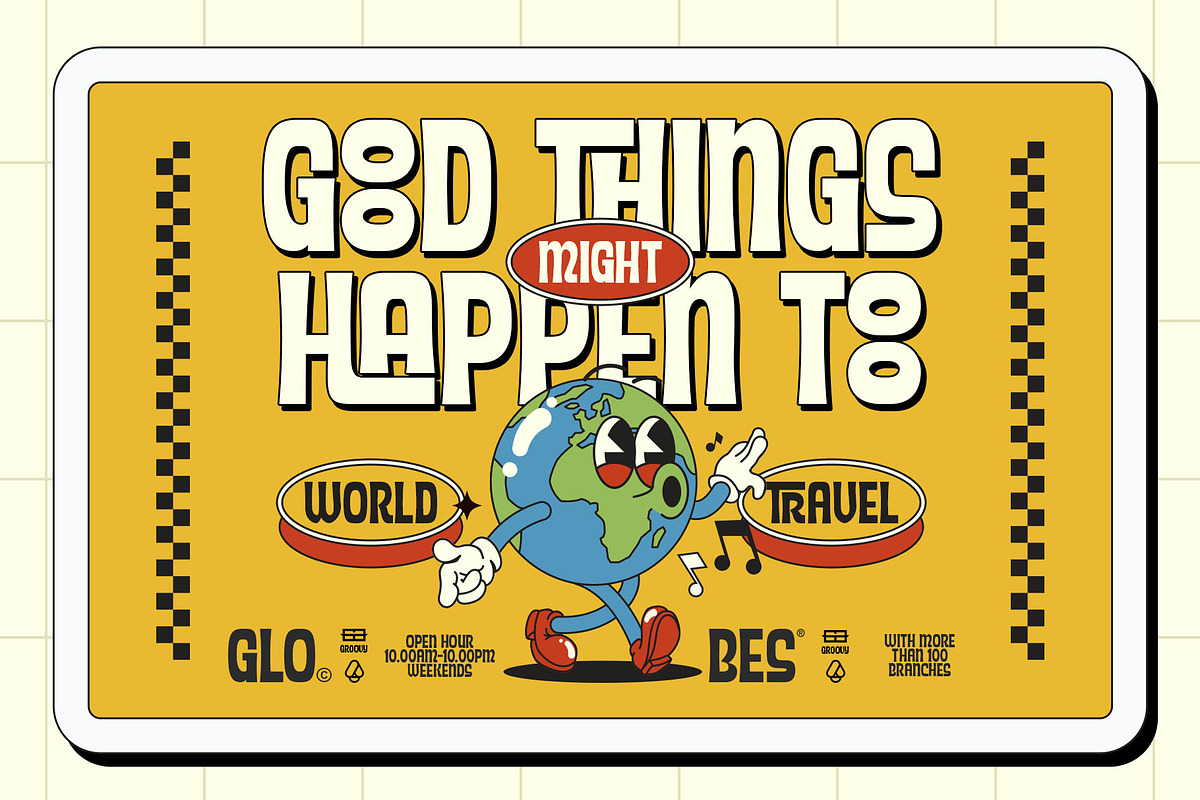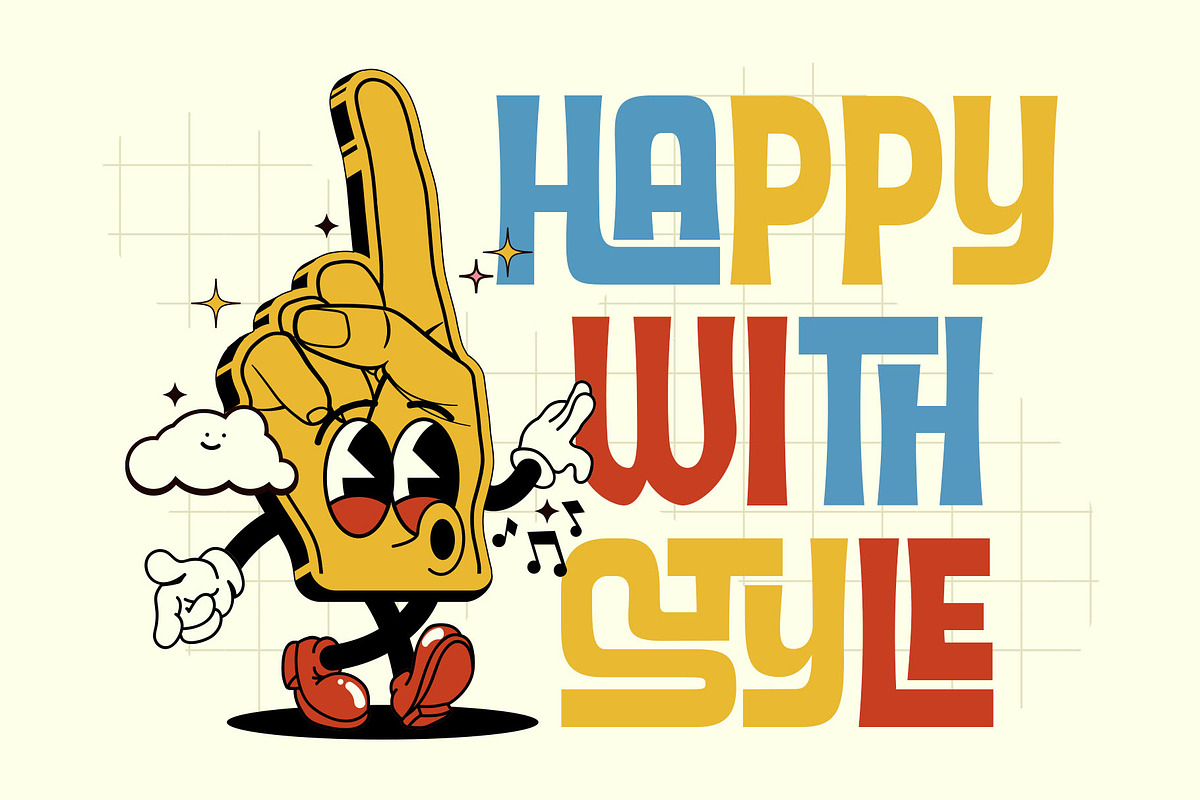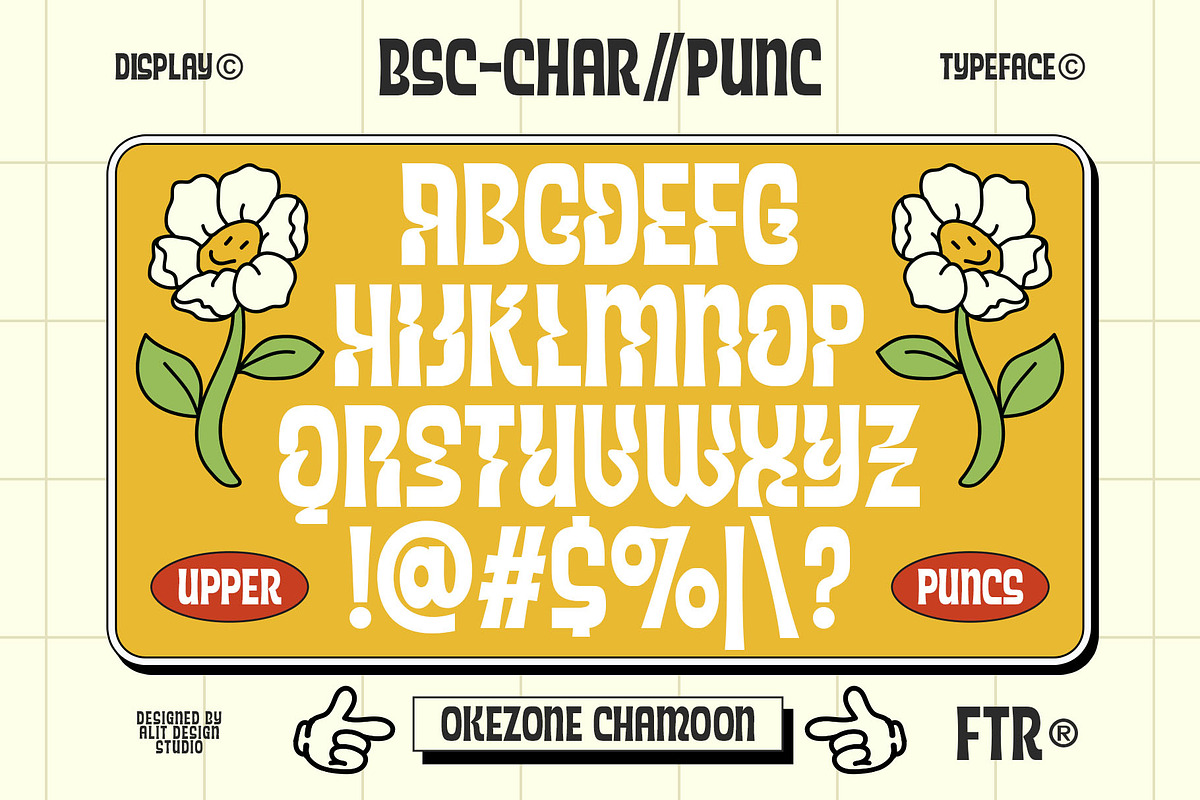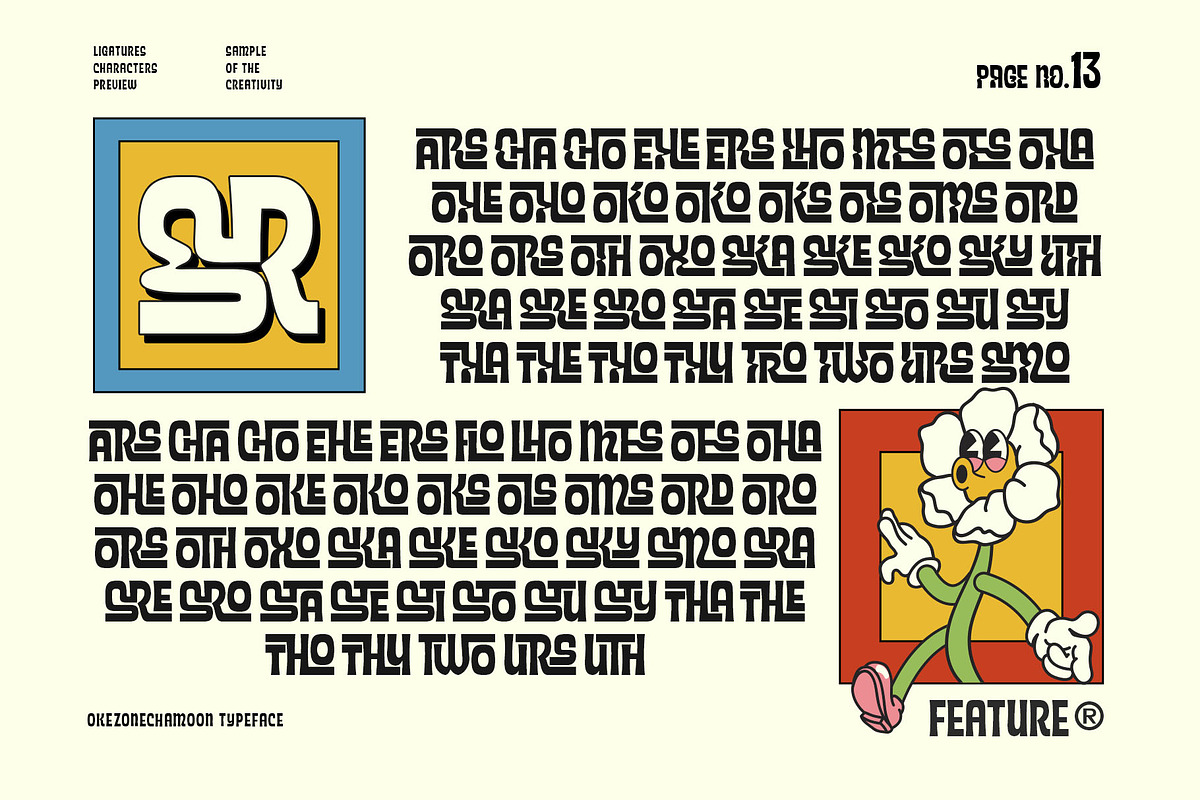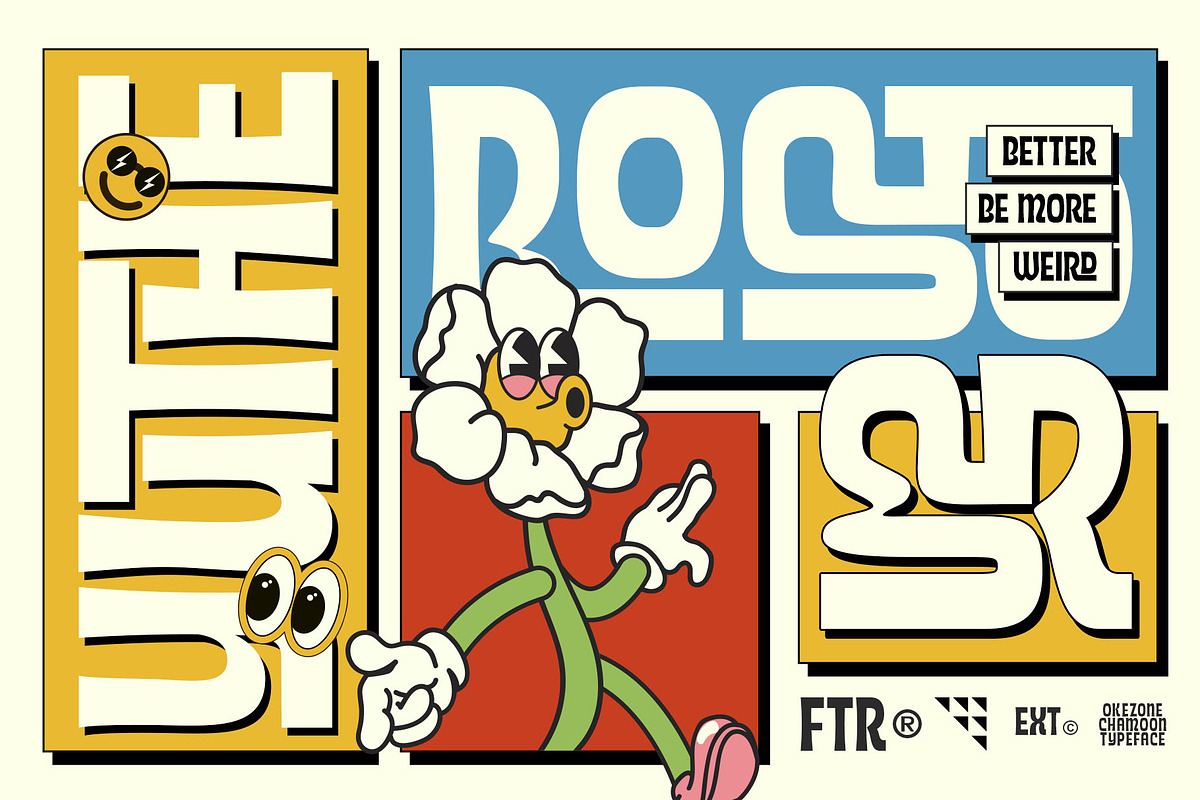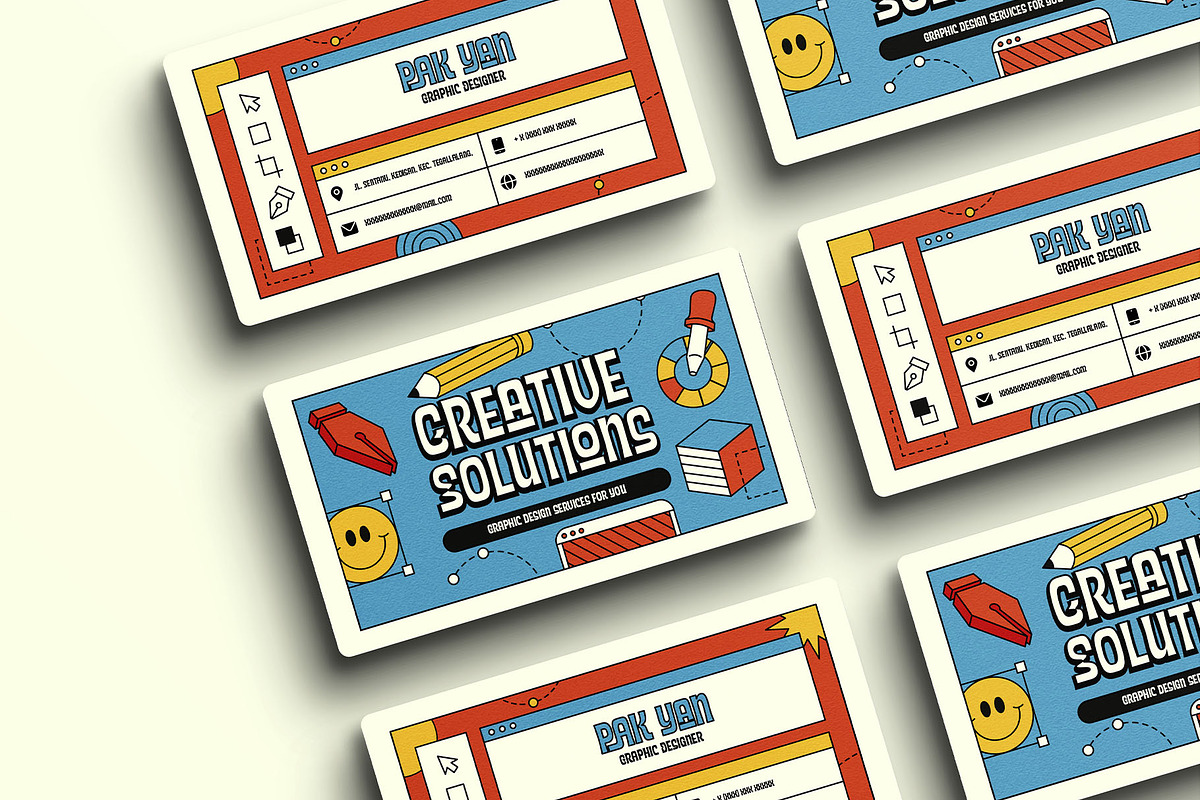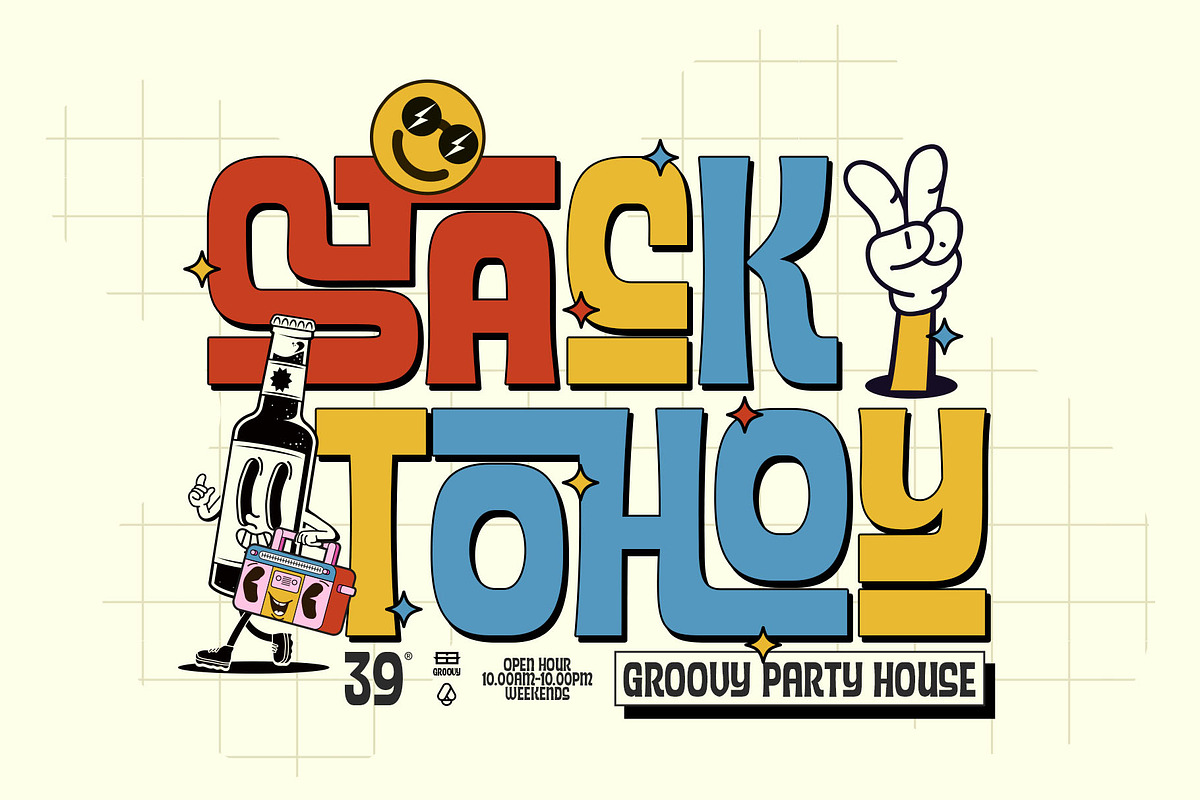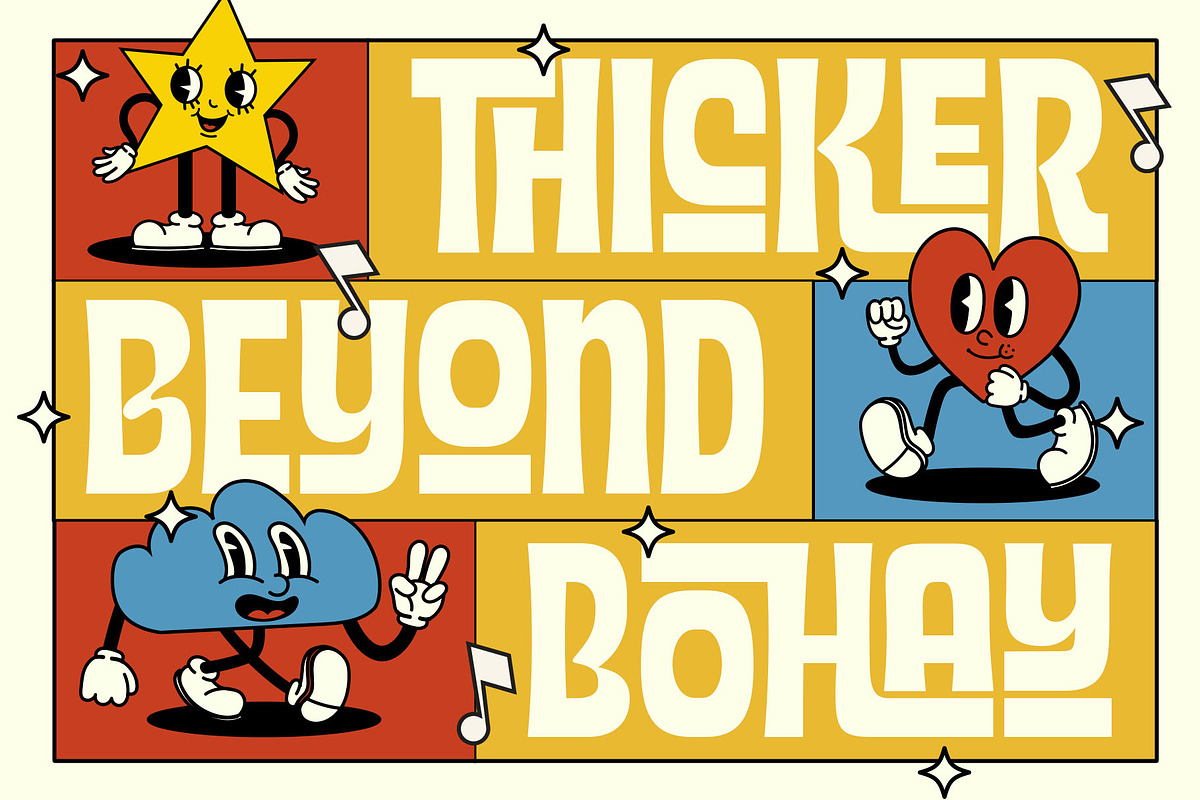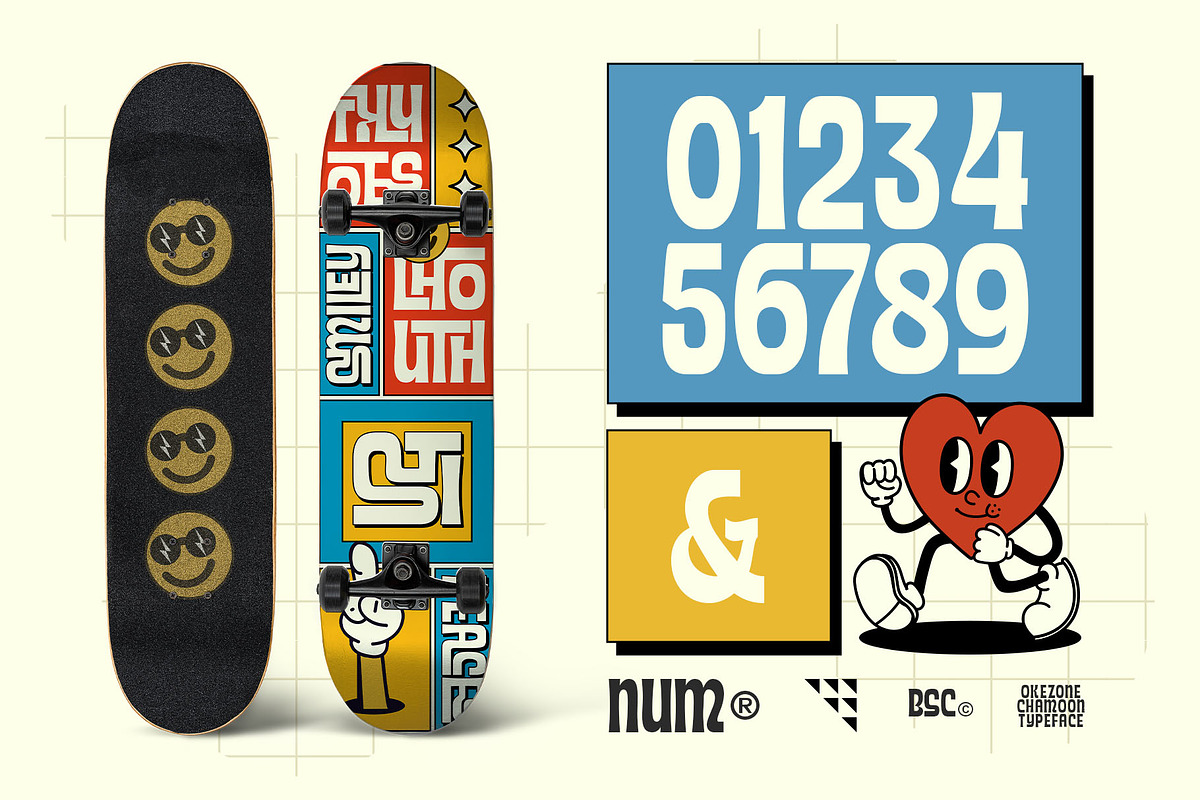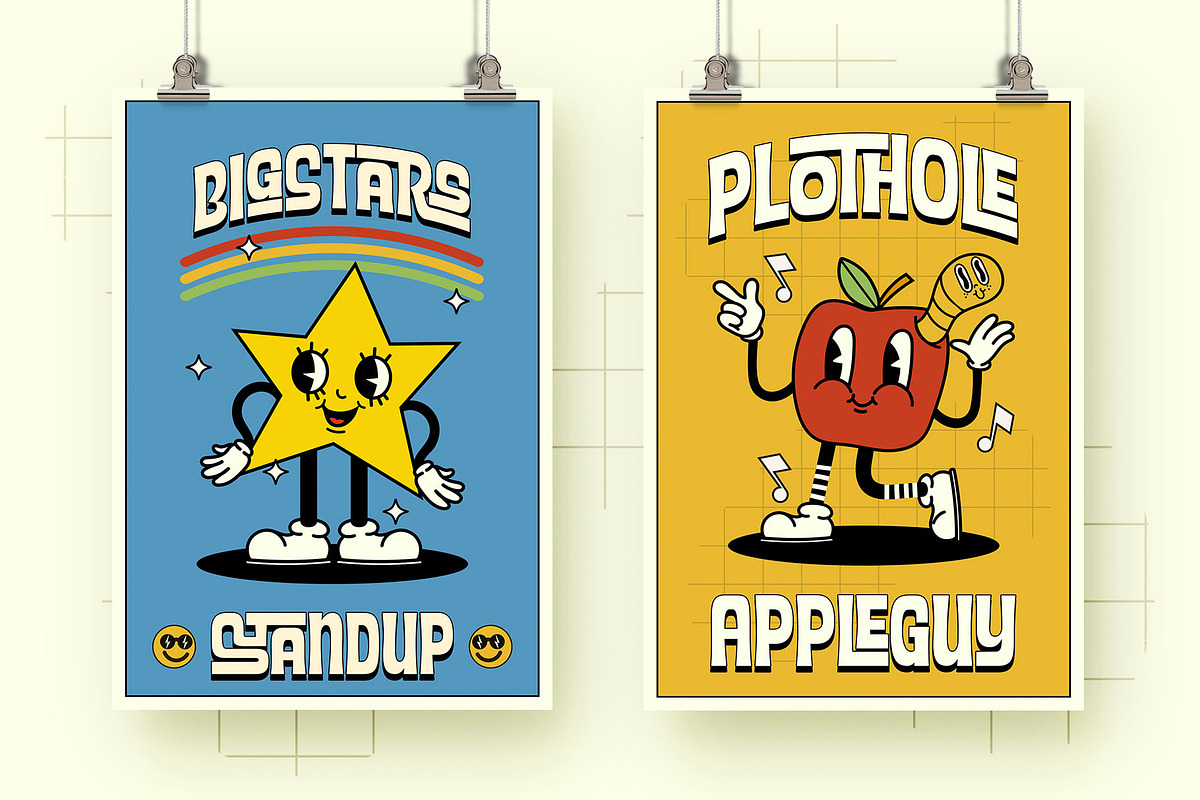
Okezone Chamoon Typeface
Get ready to groove with the Okezone Chamoon Groovy Display Serif Font! This font is the perfect blend of retro 80s style, funky cartoon vibes, and a dash of modern flair. With its wavy lines, extensive ligature options, and a whopping 758 characters, Okezone Chamoon is the ultimate choice for designers looking to infuse a playful and nostalgic touch into their projects.
Groovy 80s Aesthetics: Okezone Chamoon takes you on a trip back to the 1980s with its groovy and wavy design. It's like stepping into a time machine and bringing the funky, vibrant spirit of the 80s into your designs. Funky Cartoon Vibe: This font exudes a playful and fun-loving attitude that's perfect for creating eye-catching headlines, posters, and logos with a whimsical twist.
Versatile Ligatures: Okezone Chamoon offers an extensive range of ligatures that seamlessly connect characters, enhancing the flow and style of your text. Experiment with ligatures to create custom and captivating typography. 758 Characters: With a whopping 758 characters at your disposal, you have a wide variety of options to make your text truly unique. Add special characters, symbols, and emojis to express your creativity. Multilingual Support: Don't let language barriers hold you back. Okezone Chamoon supports multiple languages, making it a font that can connect with audiences worldwide.
Digital and Print-Ready: Whether you're designing for the web or print, Okezone Chamoon is optimized for both mediums. Your designs will look stunning on screens and in physical publications.
Unique Branding: If you want your brand to stand out and be remembered, Okezone Chamoon is the font to make it happen. Its distinct style is sure to leave a lasting impression.
Endless Possibilities: Whether you're working on advertising campaigns, retro-themed projects, or simply want to add a touch of nostalgia to your designs, Okezone Chamoon empowers you with endless creative possibilities.
With Okezone Chamoon Groovy Display Serif Font, your designs will turn heads, evoke nostalgia, and radiate a playful spirit. Embrace the funky 80s vibe and let your creativity run wild!